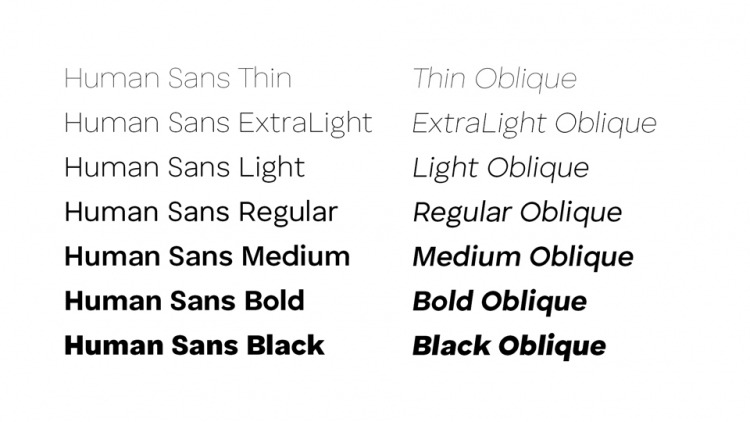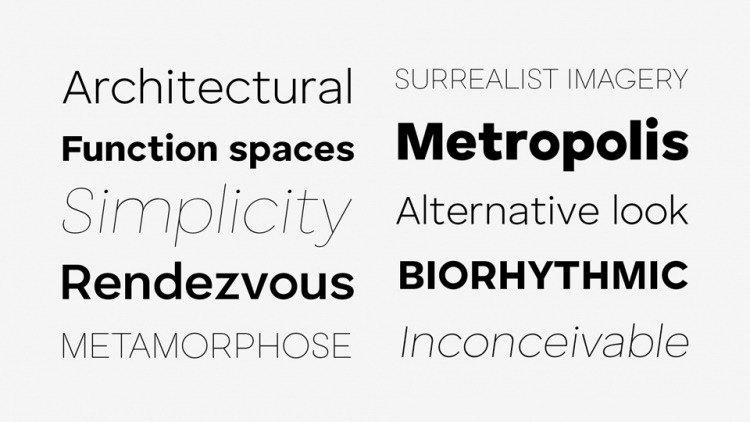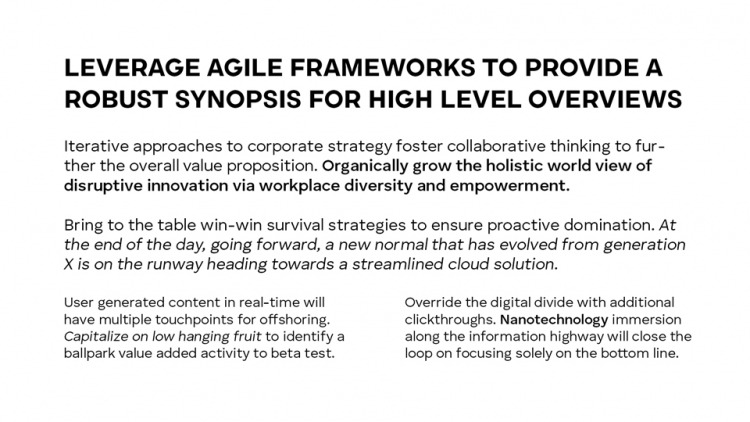
Human Sans Font
It’s a minimal and neat sans serif font originally designed in 2016 as a house font for Continuum, a design and innovation firm based in Boston, MA. The font family contains 7 weights from Thin to Black with corresponding Obliques.
The elegant balance of neutrality and modernism makes Human Sans extremely versatile in its functionality. Ideally suited for web design, logos and branding, navigation, printing, advertising and packaging, infographic, poster design, music covers and so many more.